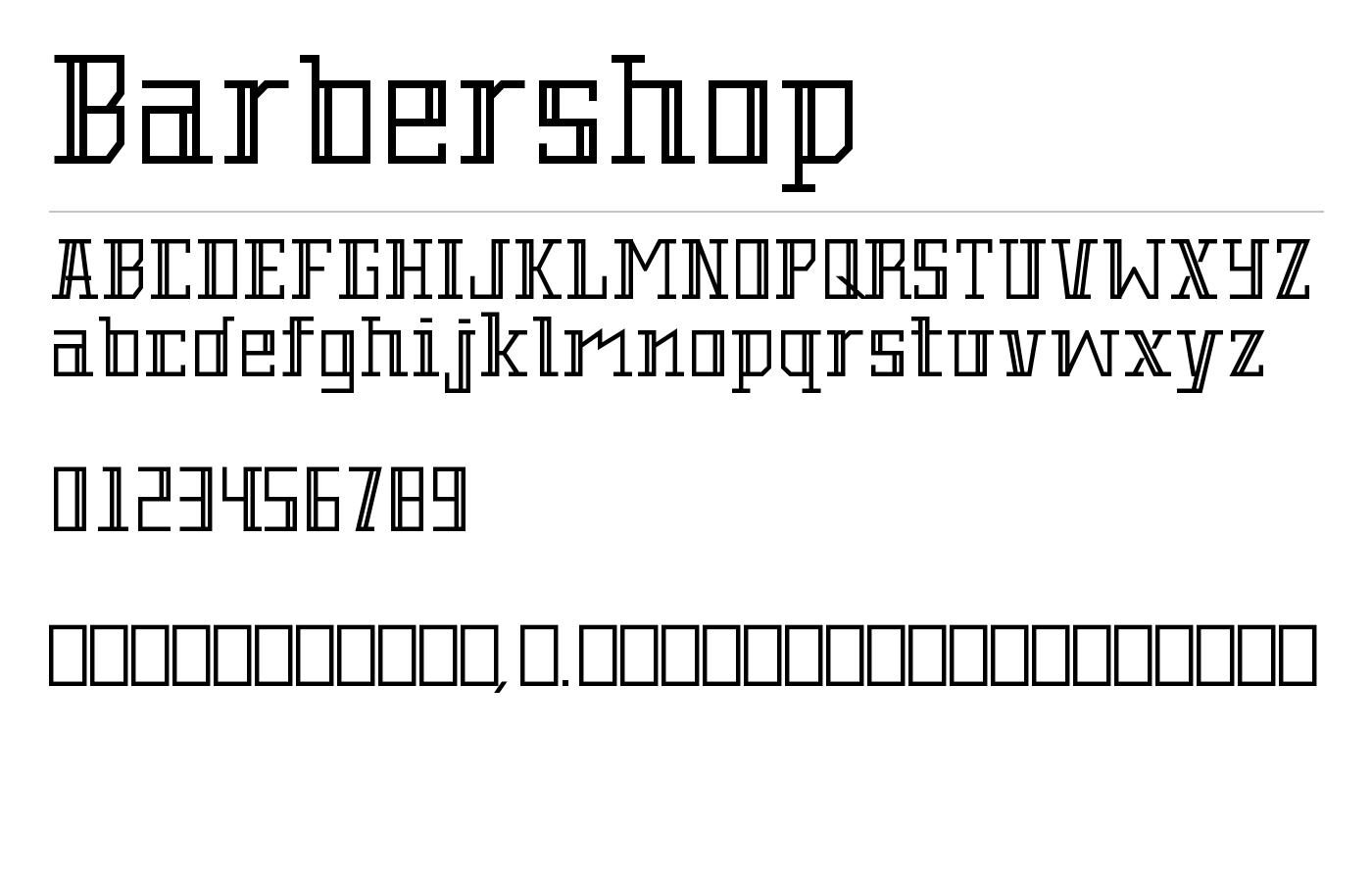
Barbershop Font is a narrow, slab serif typeface with a vintage, industrial feel, characterized by its geometric structure and sharp, rectangular serifs. Its tall, condensed letterforms and clean lines make it ideal for conveying a sense of old-fashioned craftsmanship and precision. This font works well for logos, signage, and branding that seek to evoke a retro yet mechanical aesthetic.
Barbershop Font
About Barbershop Font